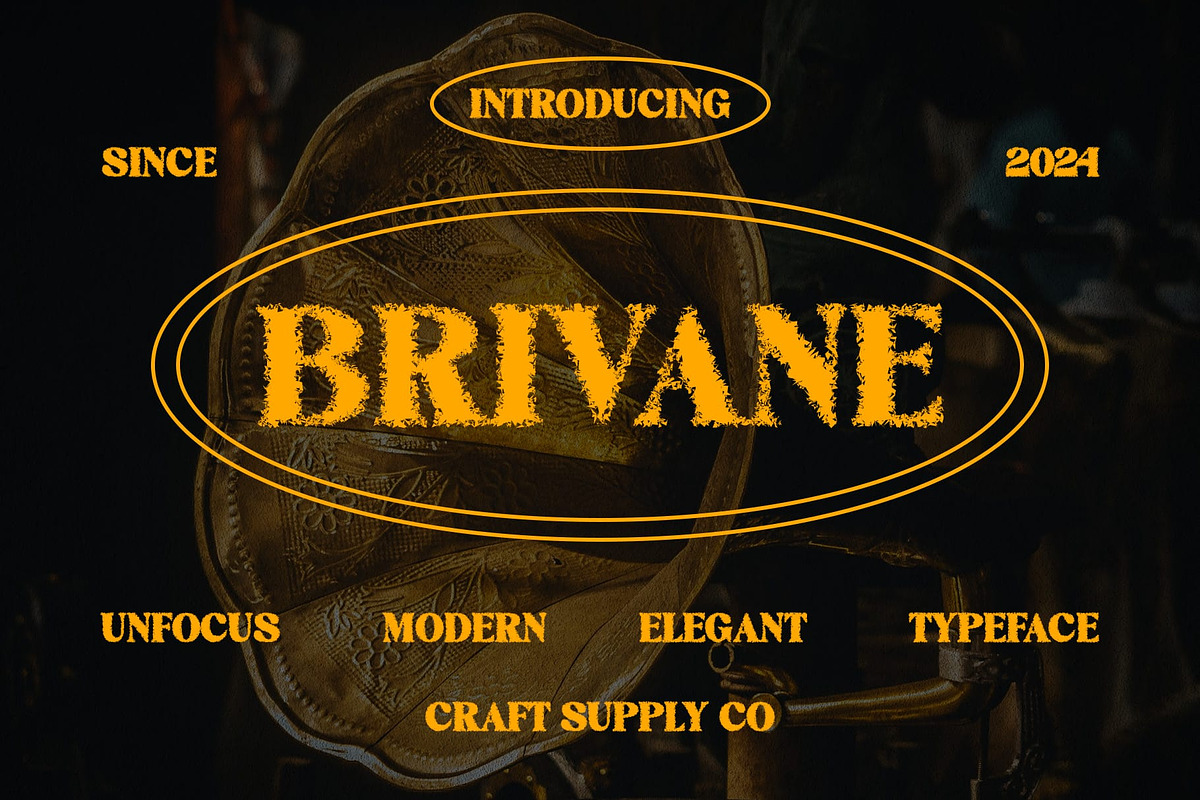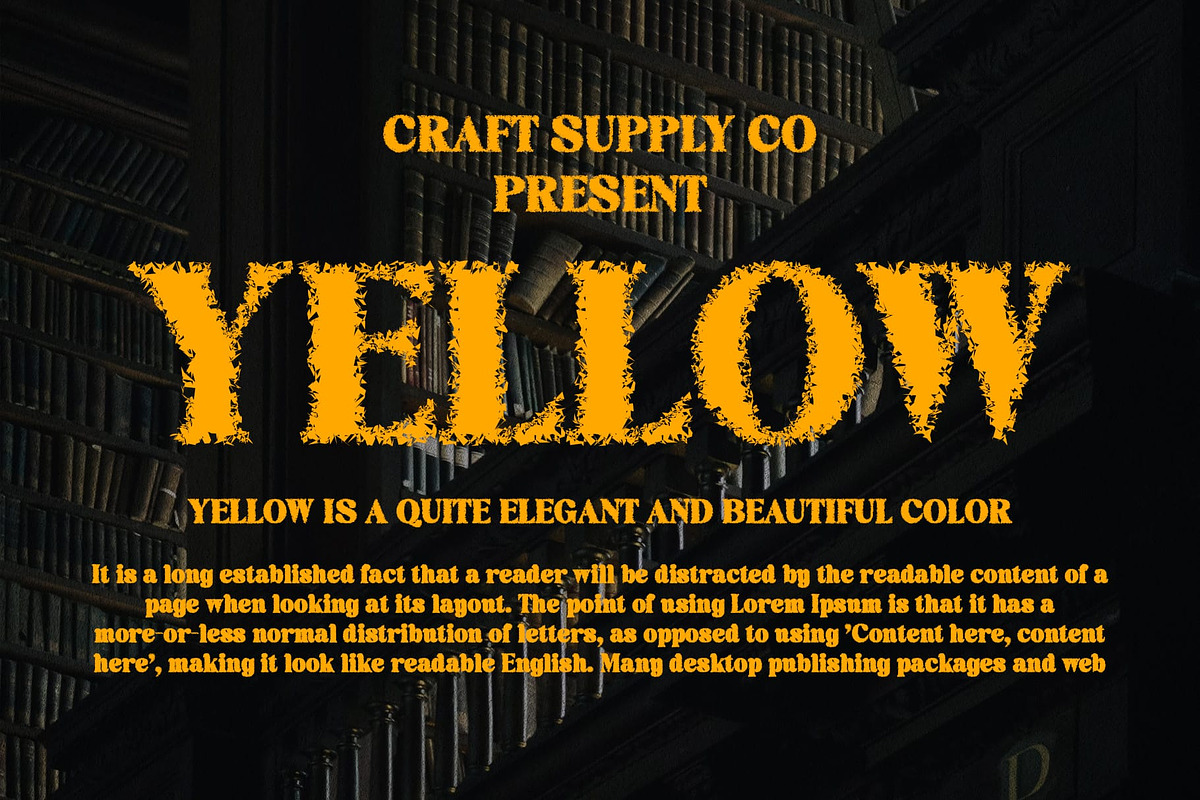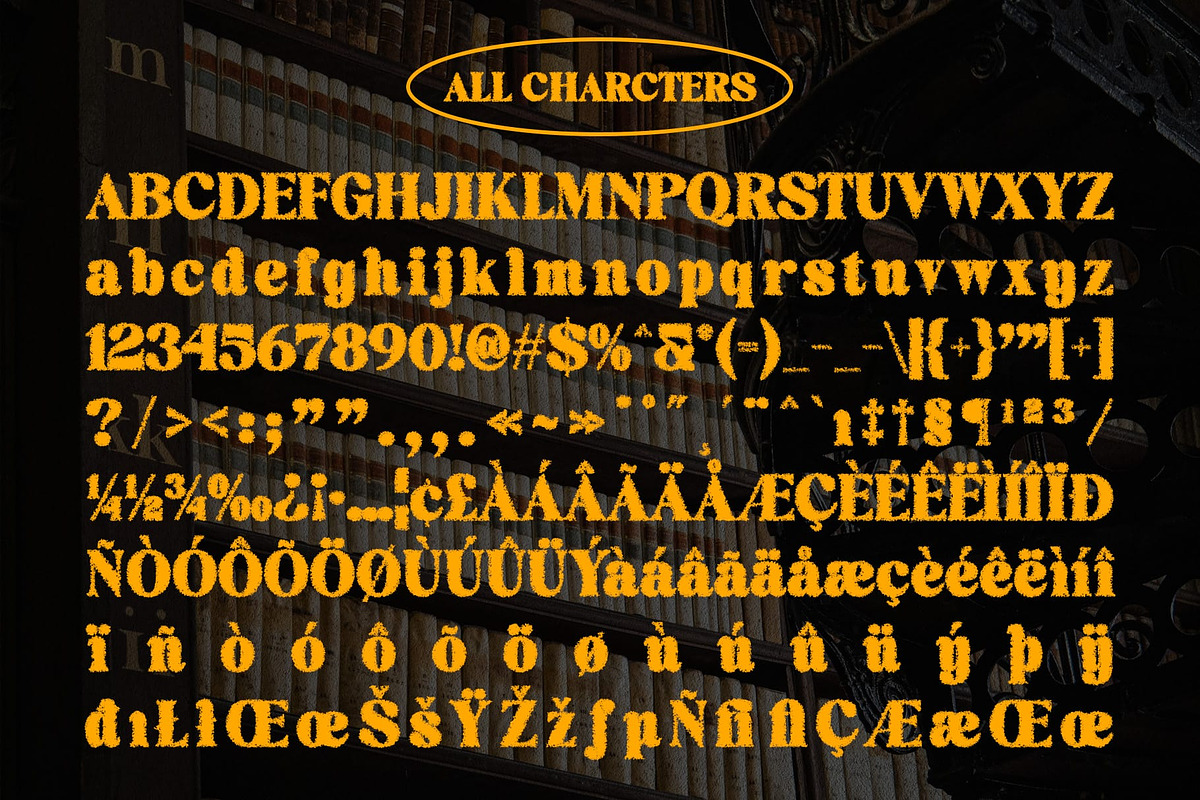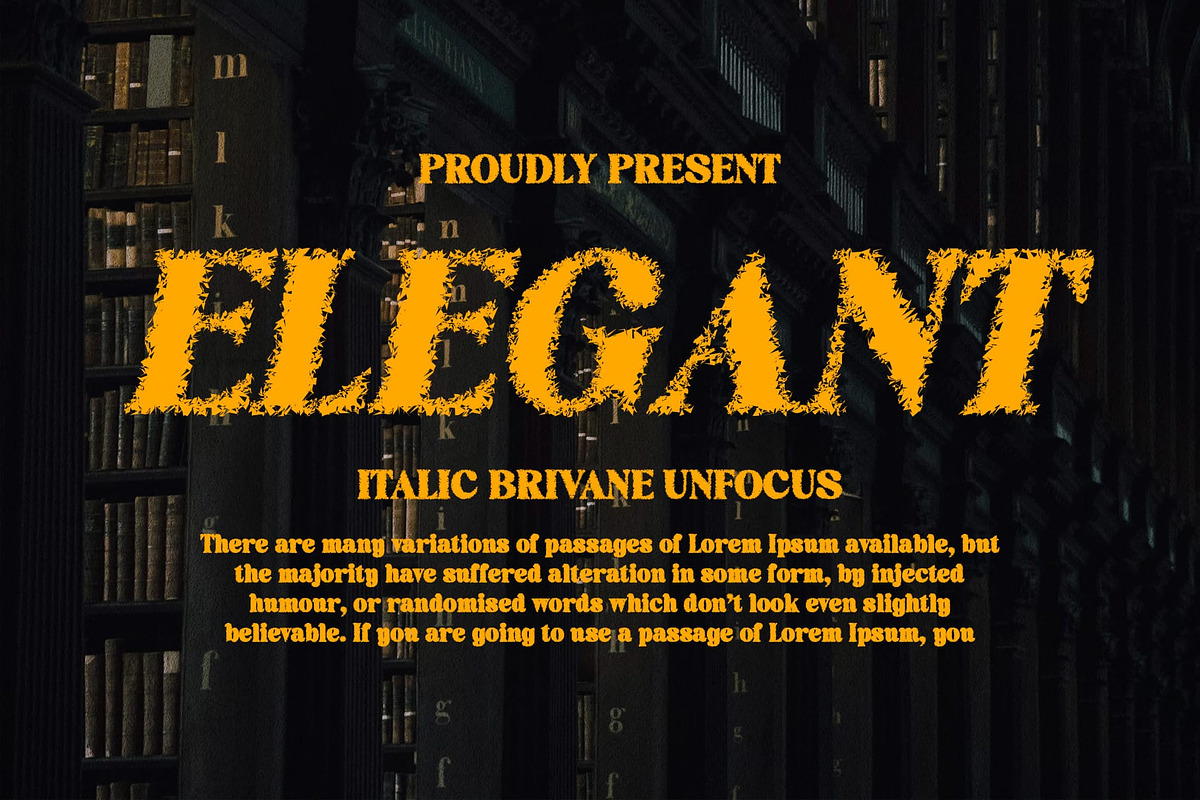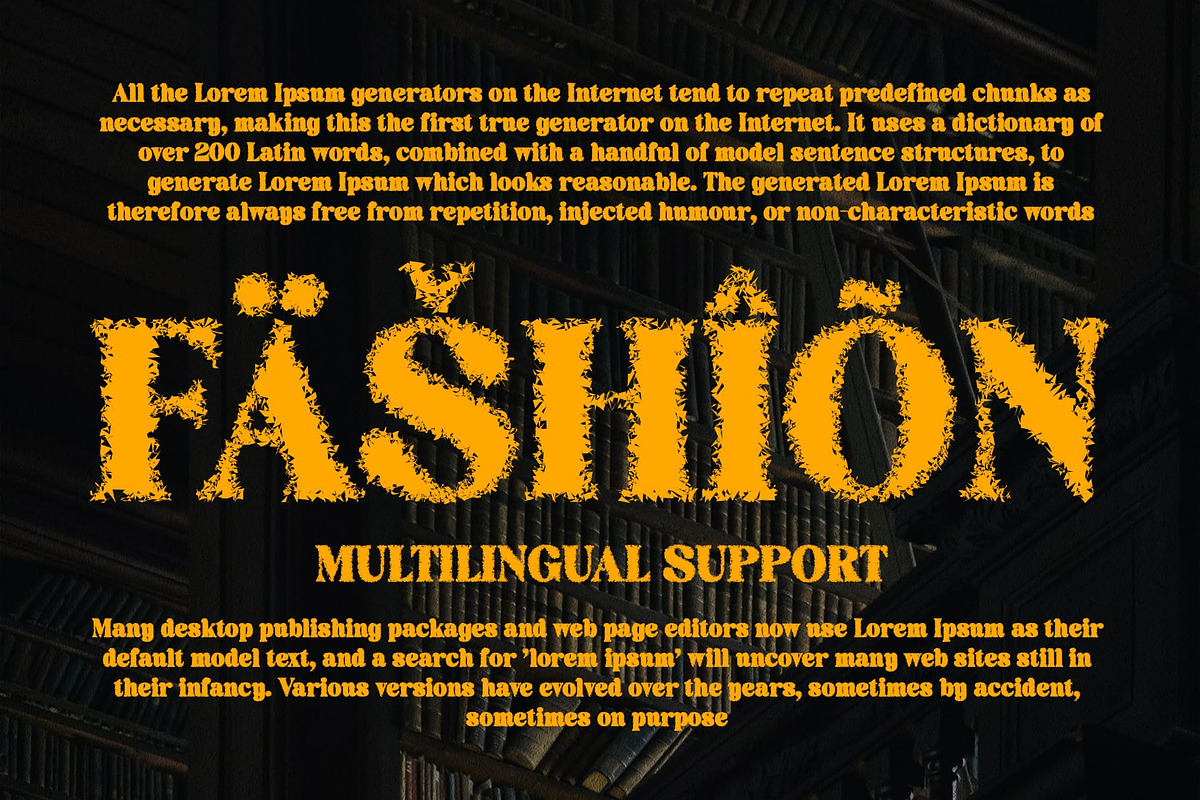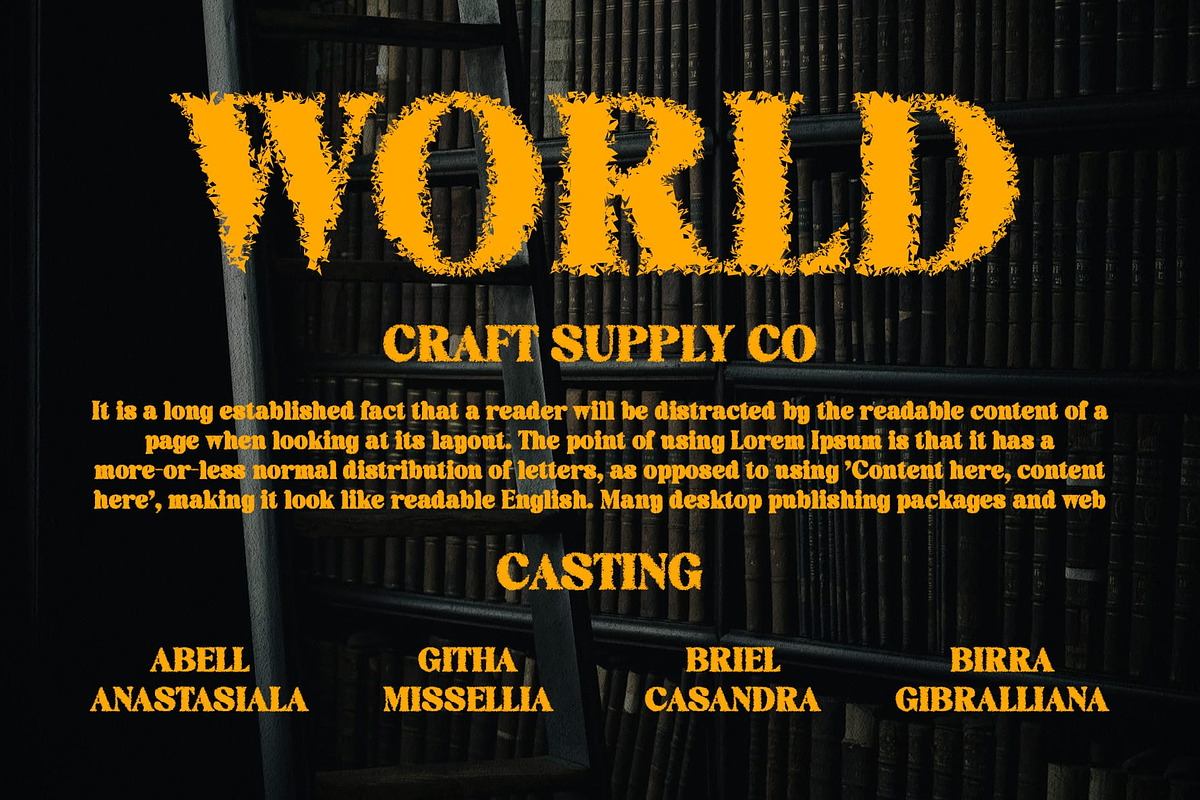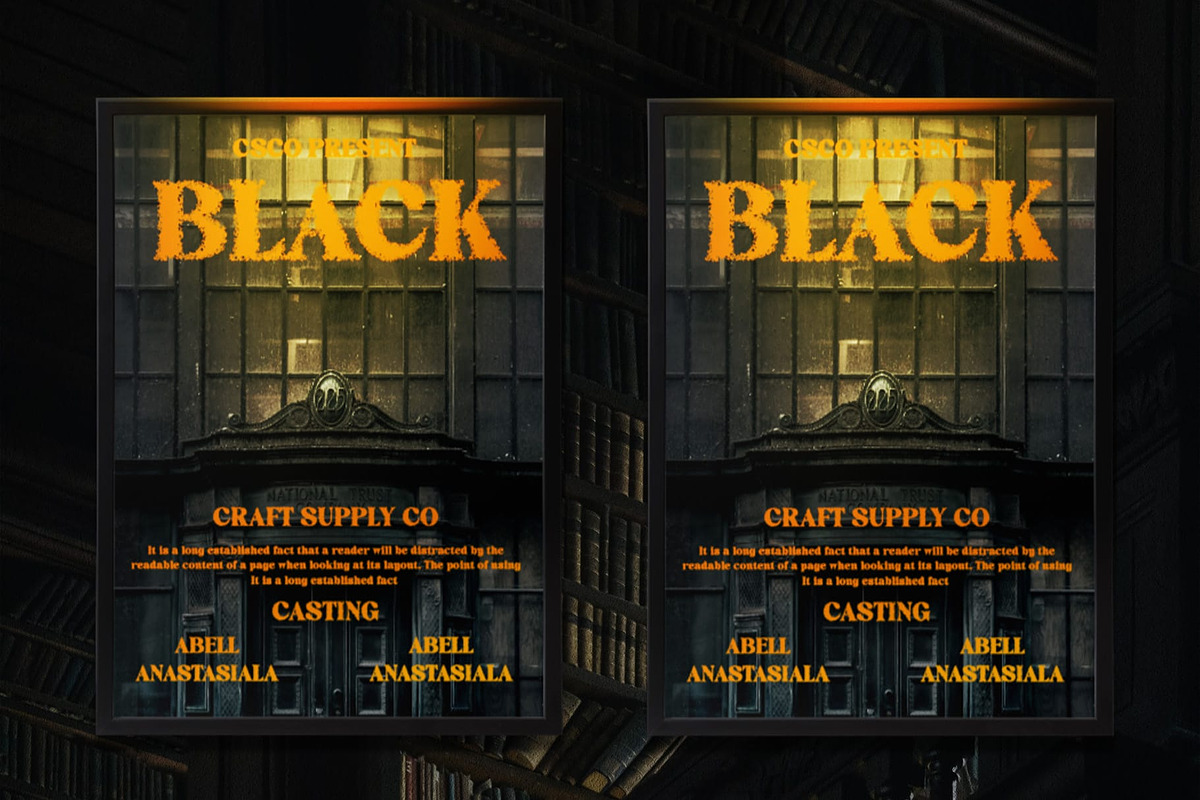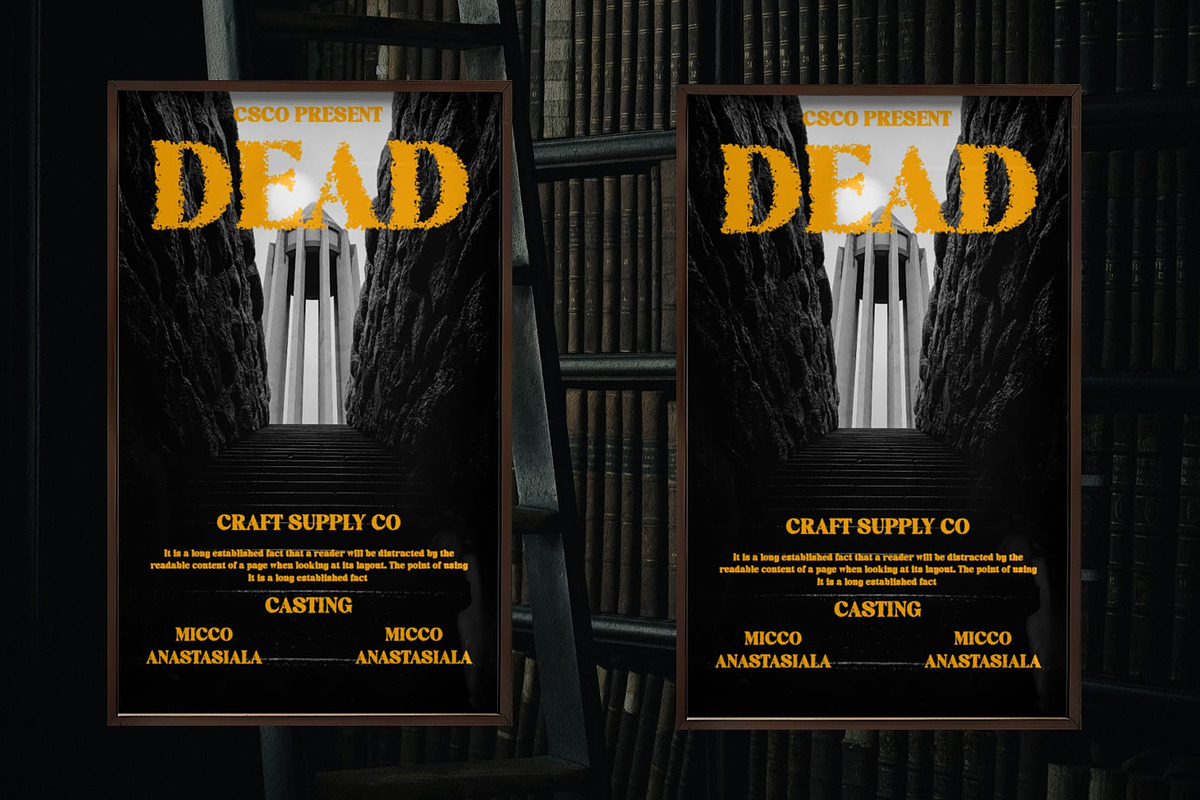
Brivane Unfocus
Brivane Unfocus: Striking Contrast with a Unique Twist
High Contrast Design Brivane Unfocus boasts a high contrast serif design that commands attention and adds a touch of sophistication to any project. Its bold strokes and fine details create a captivating visual impact.
Unfocus Effect The font is enhanced with an unfocus effect, giving it a distinctive appearance that sets it apart from traditional serif fonts. This unique twist adds an element of intrigue and creativity to the design.
Ideal for Display With its high contrast design and unfocus effect, This font is ideal for display purposes. It excels in headlines, banners, and other prominent elements where it can grab the viewer’s attention and make a bold statement.
Versatile Application Despite its striking appearance, This font is versatile in its application. From branding and advertising to editorial design and packaging, it adds a touch of elegance and flair to any project.
Bold Serif Font with a Distinctive Twist This font offers the perfect blend of striking contrast and unique design elements, making it an excellent choice for designers looking to make a statement. Its versatility and visual impact make it a standout font for a wide range of design applications.